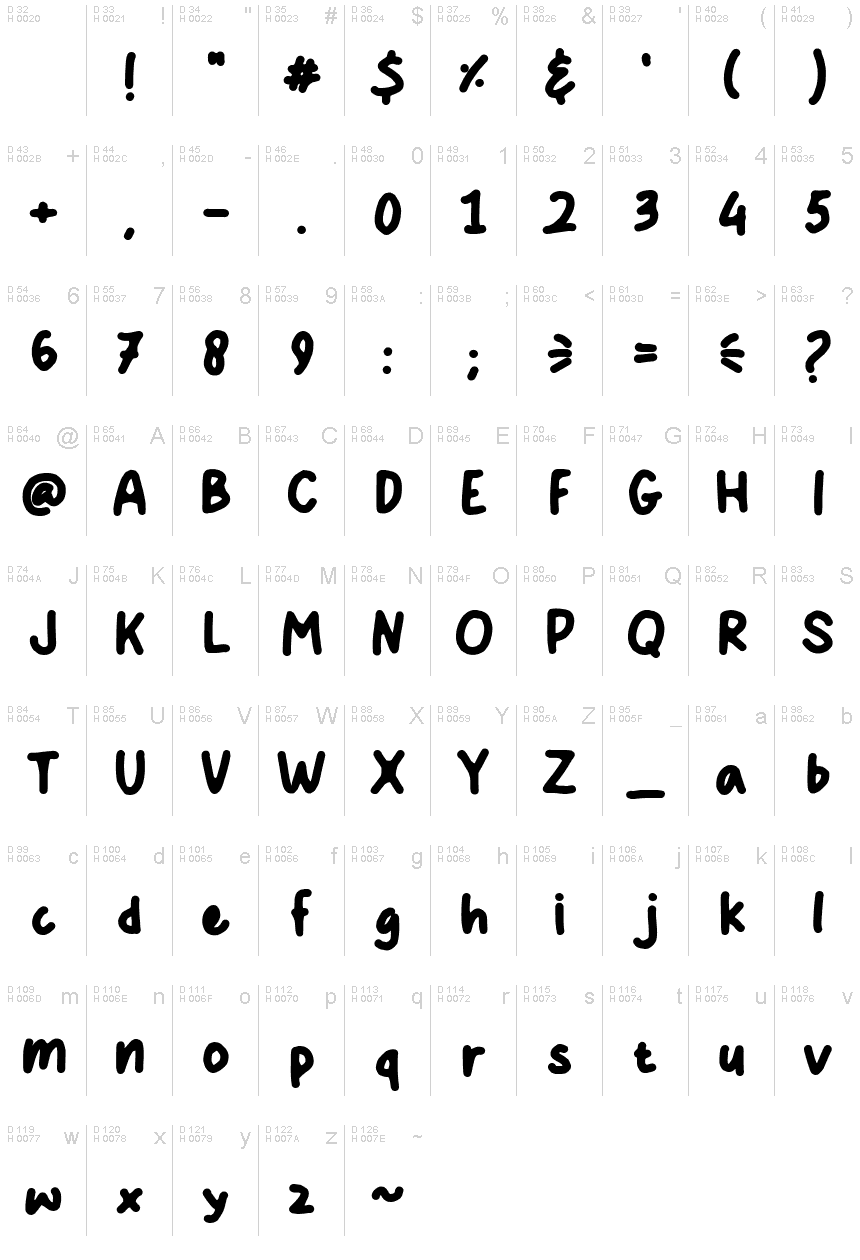
Stay Fun
Stay Fun, a bold and expressive handwritten font by MJType, is your go-to choice for projects that need a playful touch.
Its lively and dynamic strokes add energy to children's books, whimsical logos, and vibrant packaging designs. With its bold weight, Stay Fun captures attention effortlessly, making it perfect for eye-catching headlines on posters or website banners.
Let this font bring life to your creative endeavors and infuse them with a sense of fun and excitement.